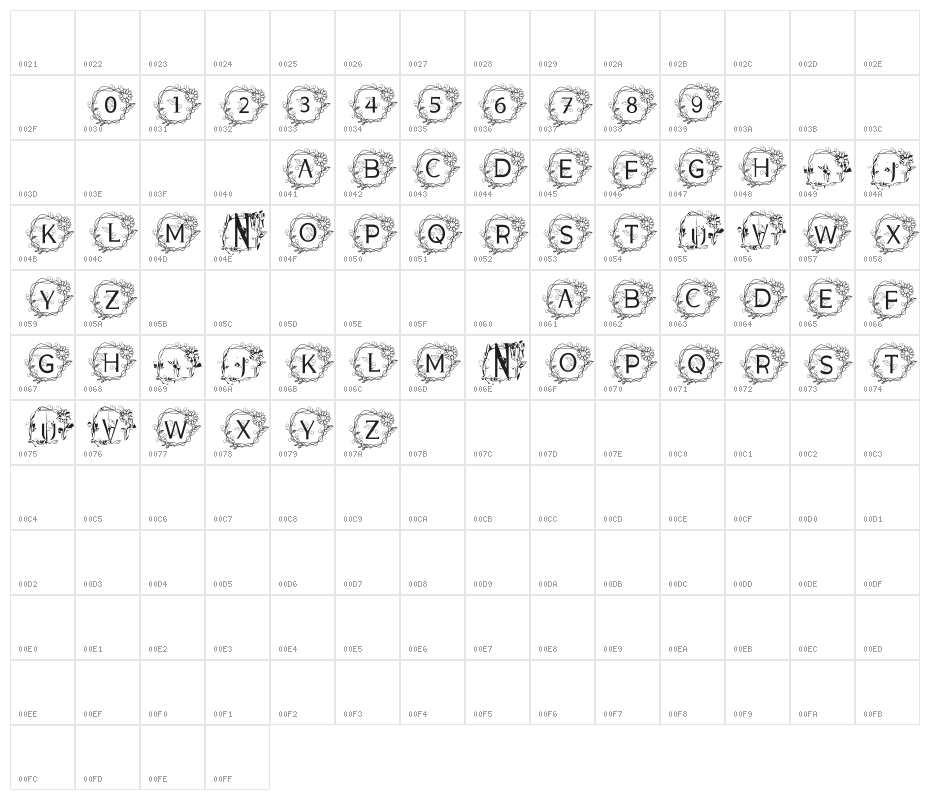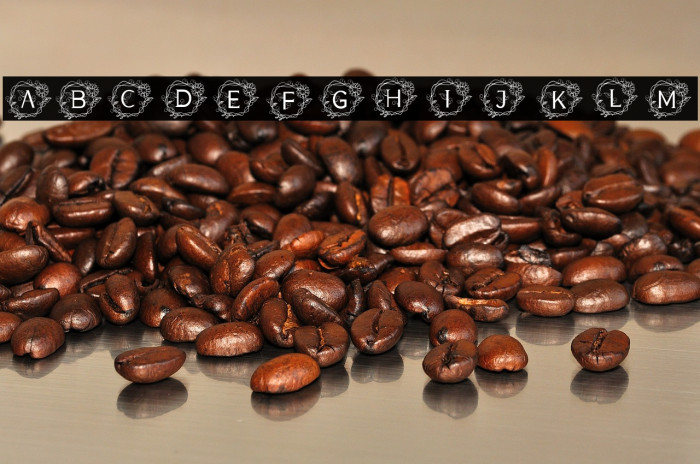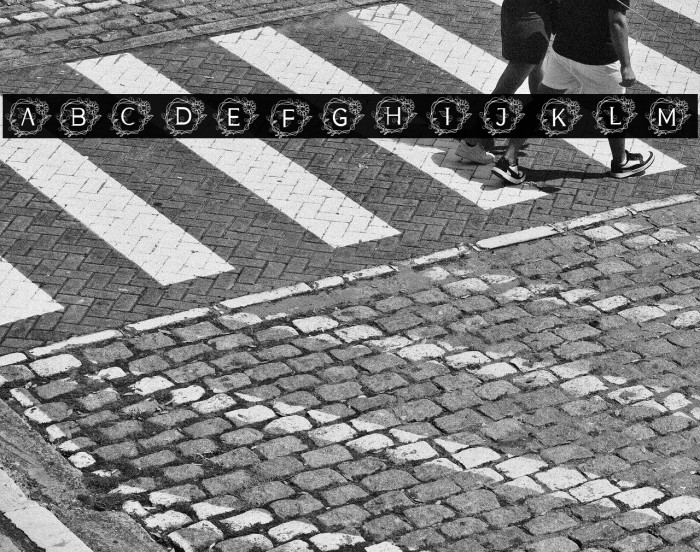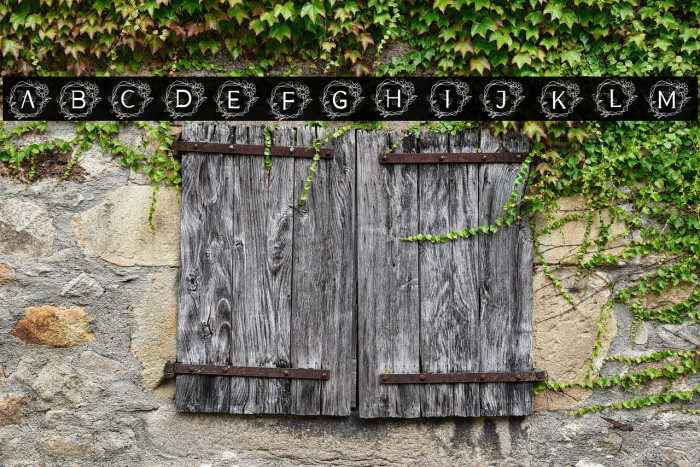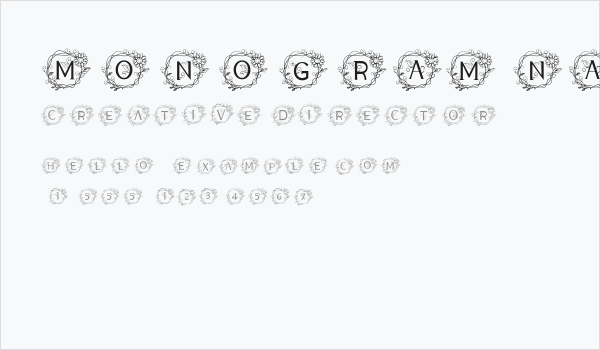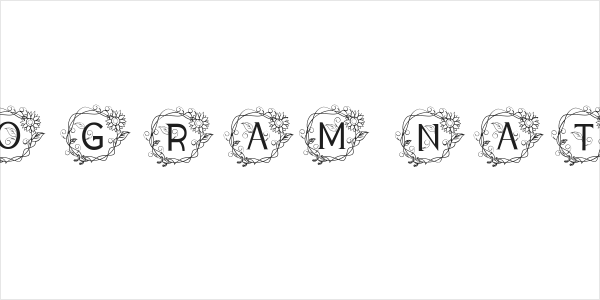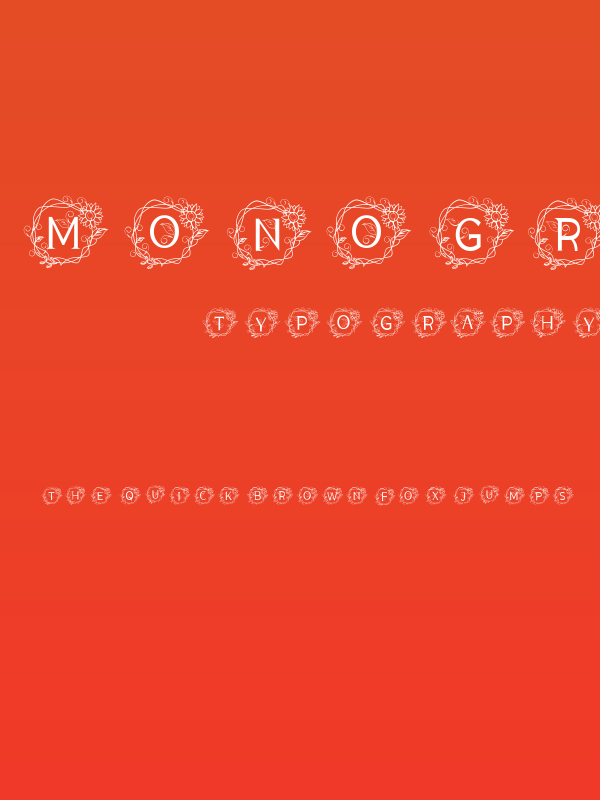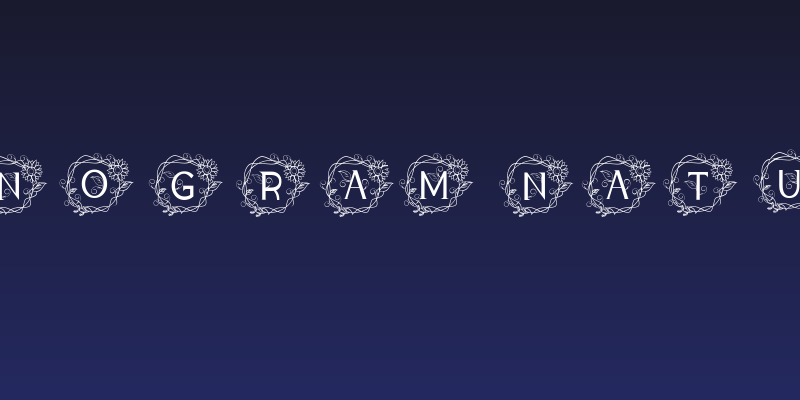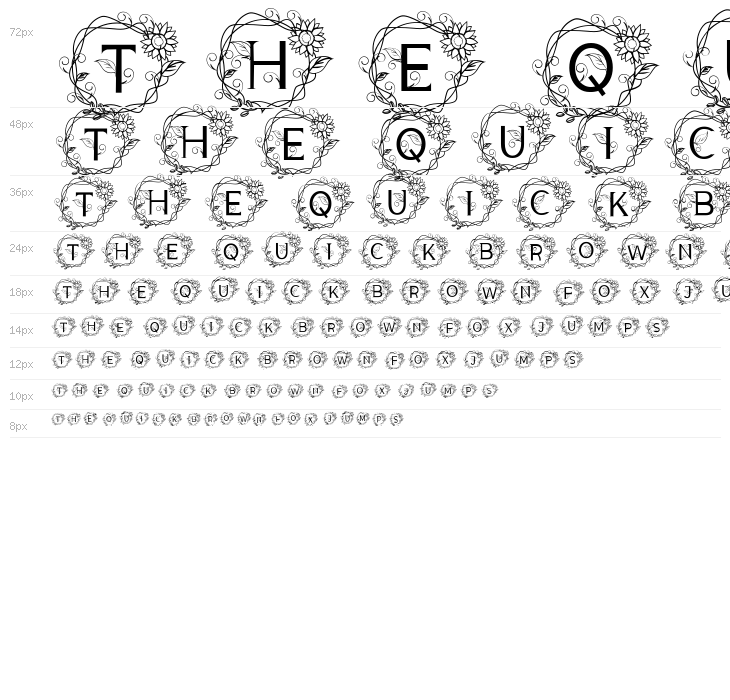
MONOGRAM NATURE Font
MONOGRAM NATURE Description
This font features a decorative style with each character encased in an ornate, nature-inspired frame. The letters and numbers are centered within circular motifs adorned with intricate floral and vine patterns, creating a harmonious blend of typography and art. The design evokes a sense of elegance and sophistication, suitable for projects that require a touch of nature or vintage charm. The characters are evenly spaced within their frames, ensuring clarity and readability despite the elaborate decorations.
| Use Case | Logos, Invitations, Decorative Monograms |
| Proposed Projects | Ideal for wedding invitations, luxury branding, nature-themed events, and decorative monograms. |